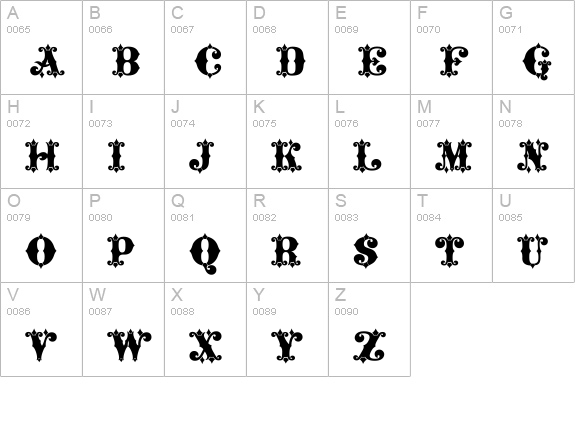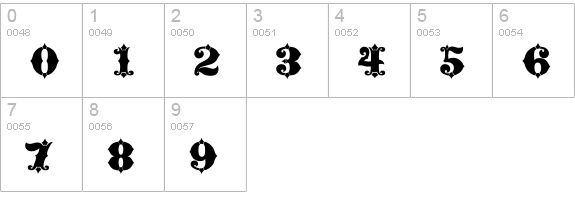
Maverick's Luck Fill font is a stunning and eye-catching typeface that exudes a sense of adventure and boldness. Its unique design features intricate details and a playful charm that is sure to make any text stand out. With its whimsical yet modern look, Maverick's Luck Fill font is perfect for a variety of creative projects, from posters to logos and everything in between. Best of all, Maverick's Luck Fill font is available for free download at FontsMarket.com. This means you can easily add this dynamic font to your collection without any cost. Don't miss out on the opportunity to enhance your designs with this striking typeface that is sure to make a statement. Download Maverick's Luck Fill font today and let your creativity soar!